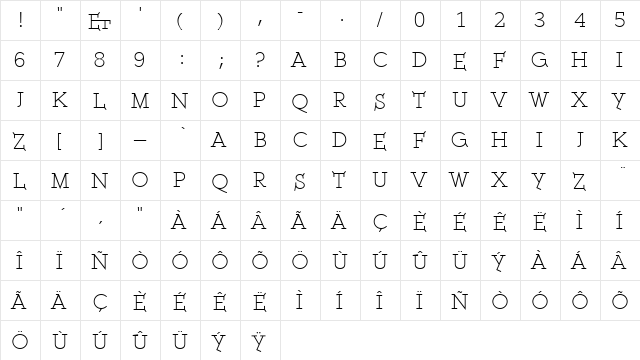
ETH Serif Regular
Design Context for ETH Serif Typeface
ETH Serif brings classic typographic sensibility to the table — its serifs and measured letterforms reflect centuries of print heritage.
Pro Tip: Set ETH Serif with slightly loose tracking in headlines to let each letterform's detail read clearly at display sizes.